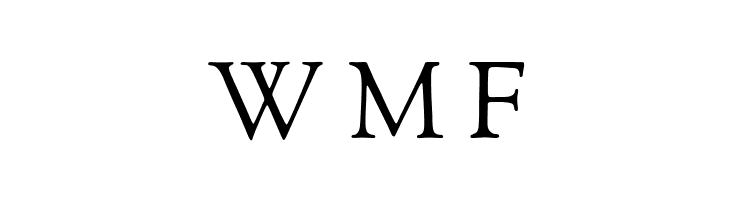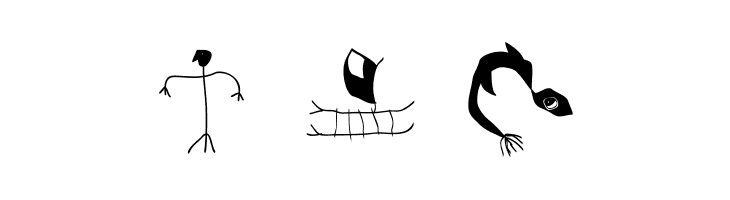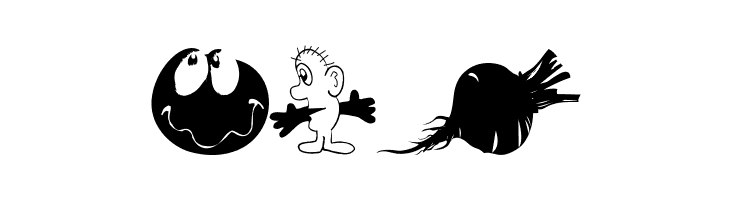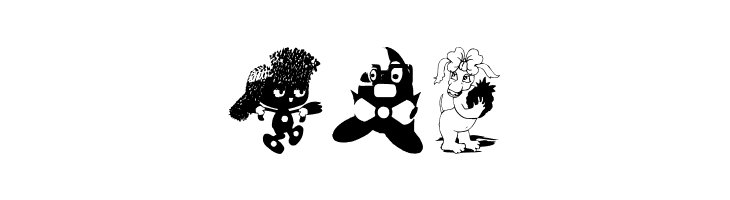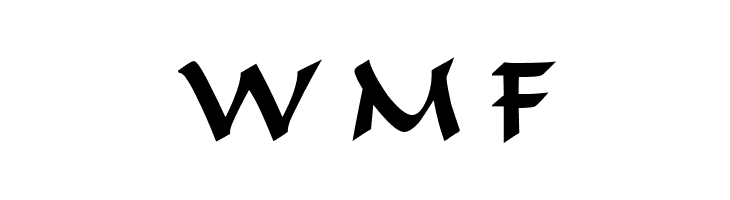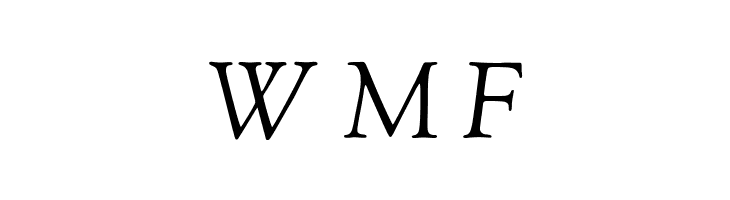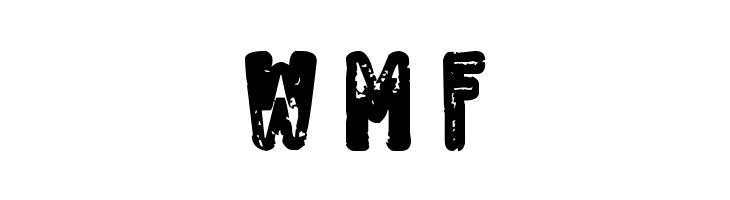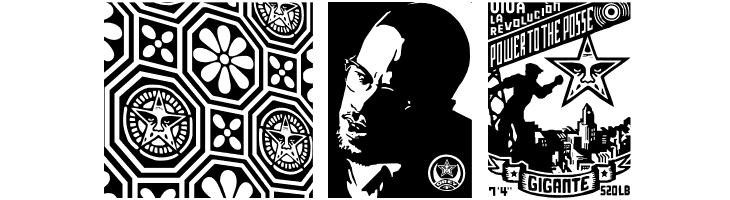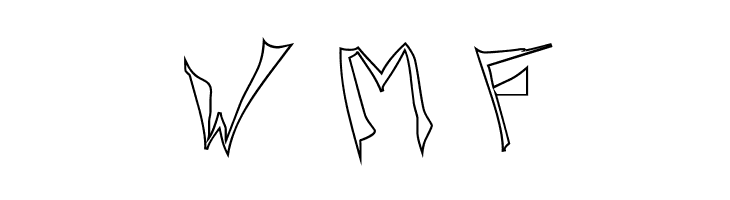
A display font with each character as a detailed graphic illustration.
A jagged, abstract font with a fragmented, artistic style.
A bold, gothic-inspired font with sharp, angular strokes and a dramatic presence.
A bold, distressed font with a vintage, grunge aesthetic.
A pictographic, hand-drawn font inspired by ancient cave art.
Playful, cartoon-based decorative font with unique illustrated glyphs.
Cartoonish, decorative font made of unique character illustrations.
A classic serif font with elegant strokes and a vintage aesthetic.
An elegant italic serif font with a classic and sophisticated style.